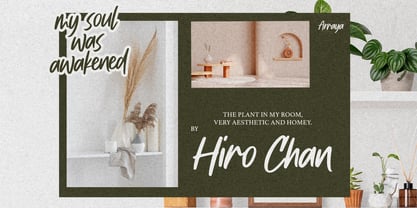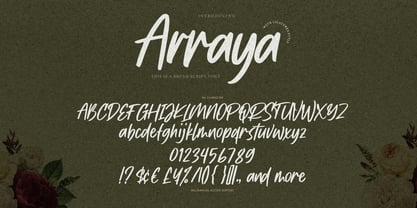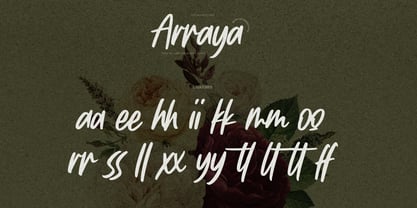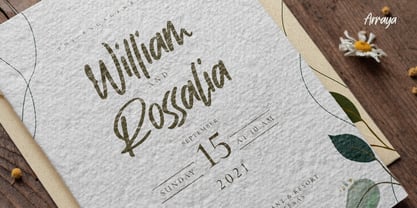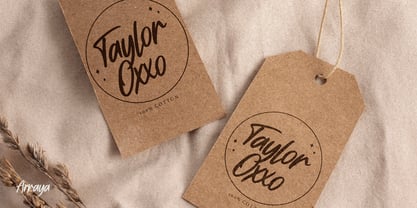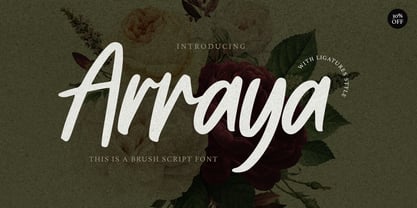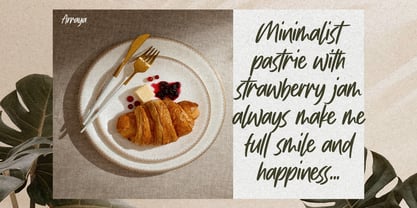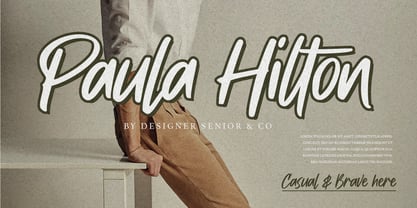
Arraya
par Gassstype
La famille de polices Arraya a été conçue par Abdul Malik Wisnu et publiée par Gassstype. Arraya contient 1 styles. En savoir plus sur cette famille
Arnya is a bold and expressive brush script font crafted to bring a natural, artistic touch to your designs. With dynamic strokes, flowing ligatures, and a handmade character, Arnya is perfect for branding, logos, packaging, invitations, posters, social media, apparel, and creative projects. Its energetic yet elegant style adds personality and a distinctive handcrafted feel to every word.
Concepteurs: Abdul Malik Wisnu
Fonderie: Gassstype